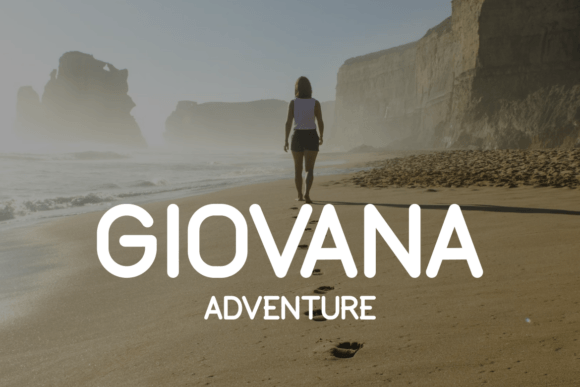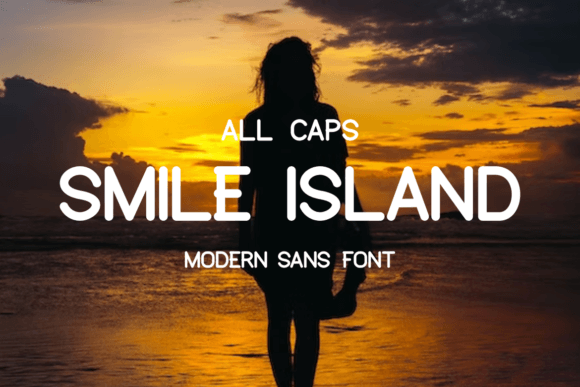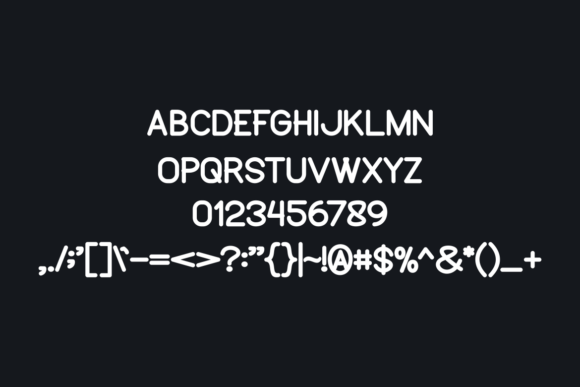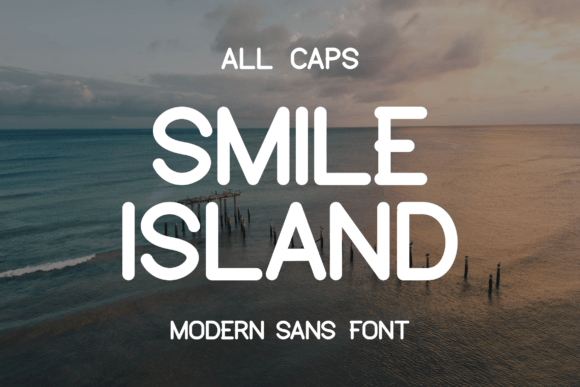
Introduction to Smile Island Font
Smile Island is a clean and easy-to-read font with simple, smooth letters.
It’s a basic sans serif style, making it great for modern designs that need a clear and friendly look .
Key Features of Smile Island Font